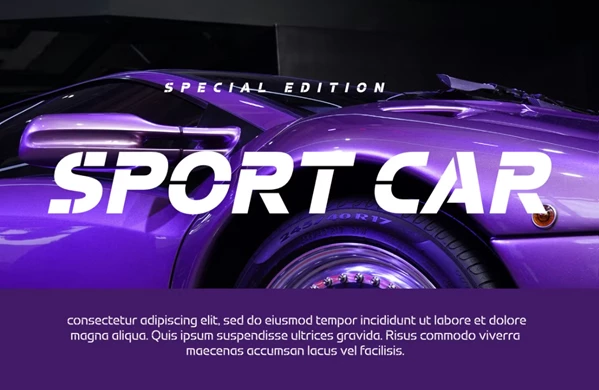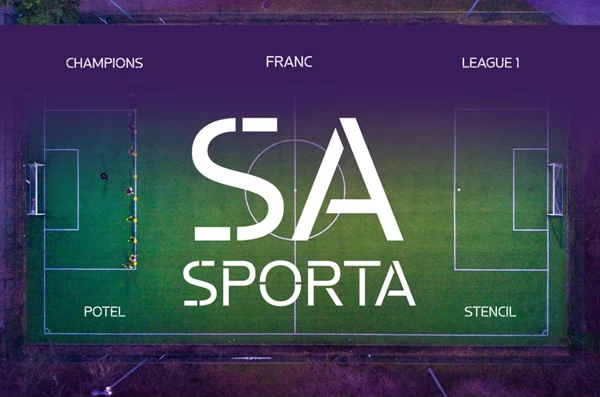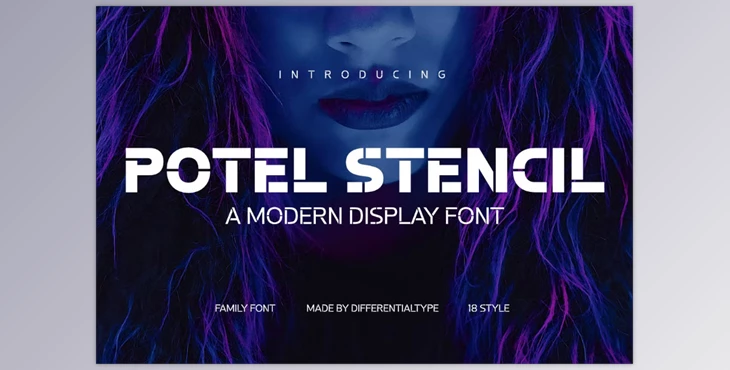
Potel Stencil Font:
The Potel Stencil typeface is a modern font family containing a futuristic appeal with a nice cut-out aesthetic. This font consists of 18 style variations, ranging from thin to black to respective italics, and boasts incredible flexibility for various design needs. Each letterform contains unique cut-outs, which give this typeface an elegant and modern technological appearance, perfect for cutting-edge and daring design.
Because of its bold uniqueness, Potel Stencil is perfect for things like posters, movie marketing campaigns, album covers, logotypes, and commercial packaging. Potel Stencil is more than just a typeface; it becomes a beautiful visual that people will remember. Thus, Potel Stencil is the perfect font for anyone who wants modern clarity and cut-out drama!